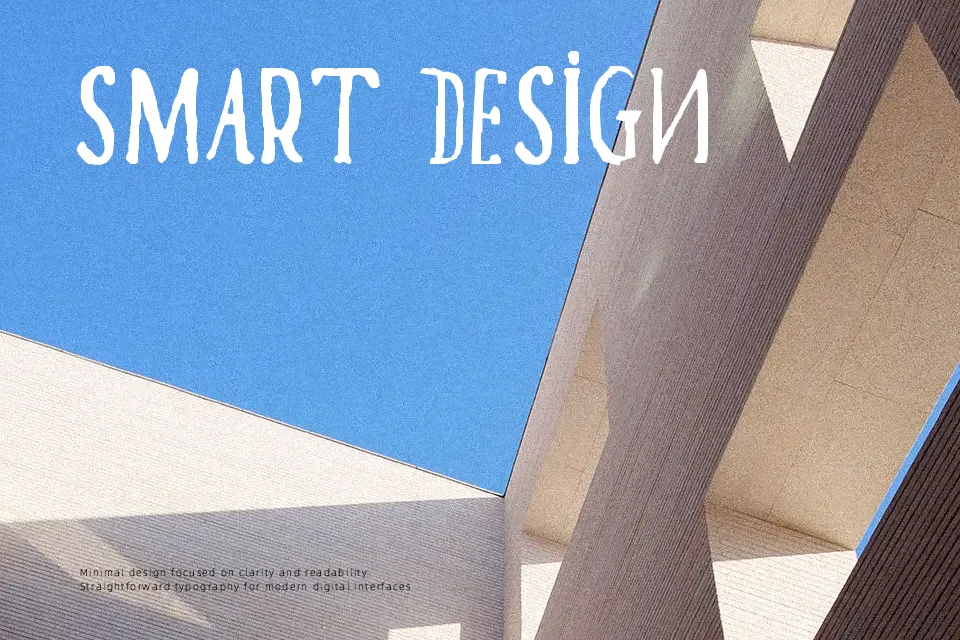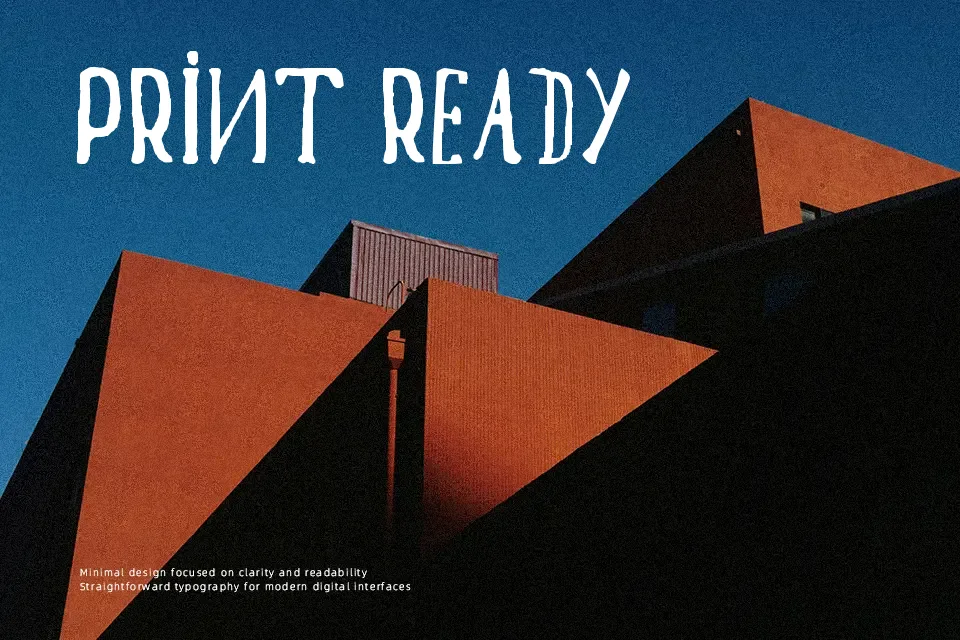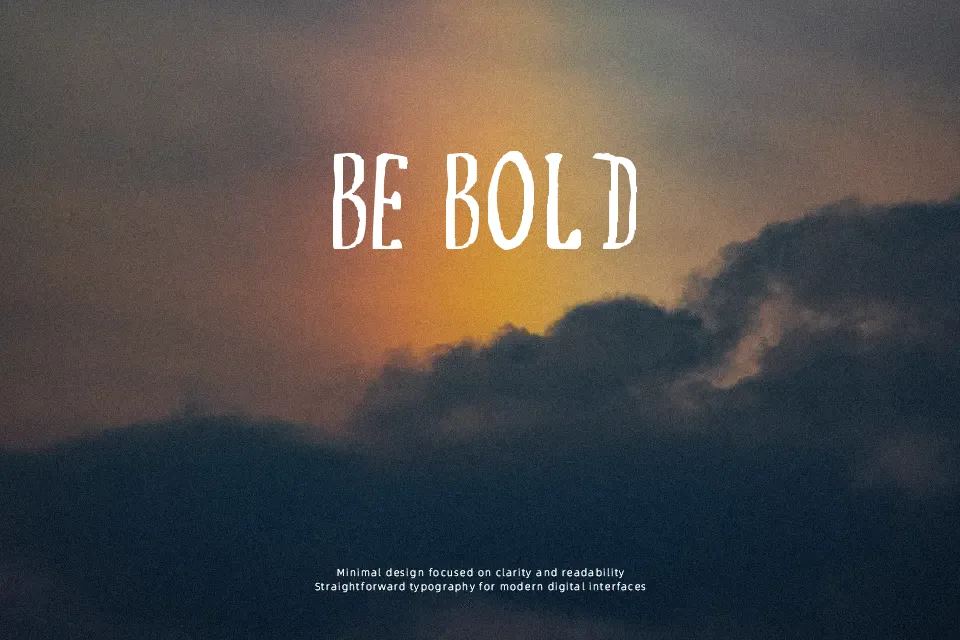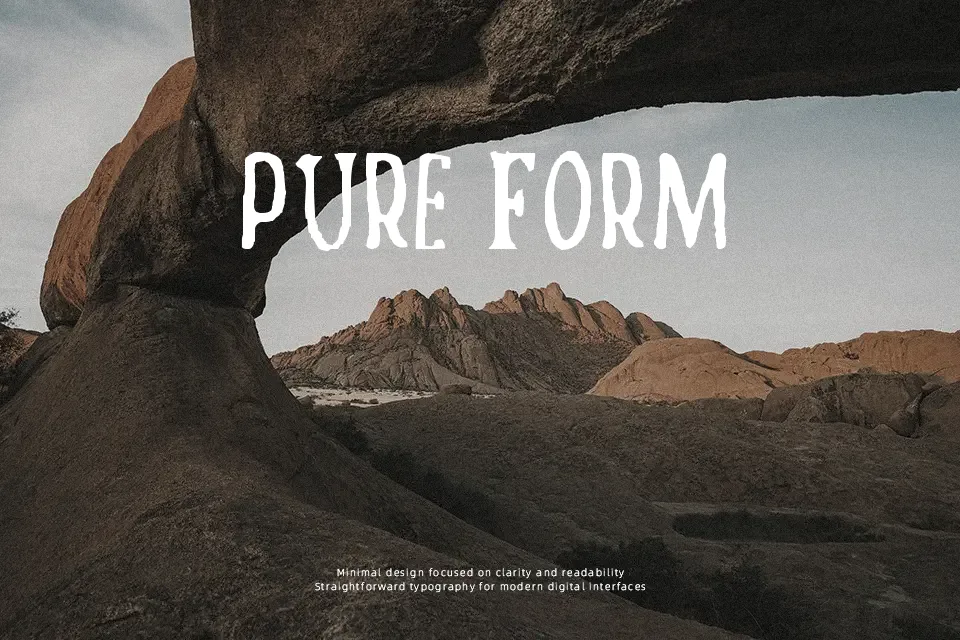
Poma Font
Designed by Gonzalo Tellez
Poma Font offers a striking visual journey into historical typography, drawing its textured, handwritten letterforms directly from colonial-era manuscripts. The erratic strokes and distressed edges create a compelling, weathered appearance that feels entirely authentic to early seventeenth-century documentation. Its organic, irregular spacing helps maintain a raw, rustic rhythm across medium and large displays. Because the letterforms feature heavy erosion and archaic shapes, the design becomes difficult to process in long continuous paragraphs. The textured details can lose clarity at smaller scales, but the robust, irregular character weight ensures excellent visibility for prominent titles, ancient-themed posters, and immersive exhibition graphics.
antique book covers
museum exhibition graphics
vintage product packaging
historical documentary titles
modern UI design
Perfect for film, headline, and packaging, with a ancient and decorative style.